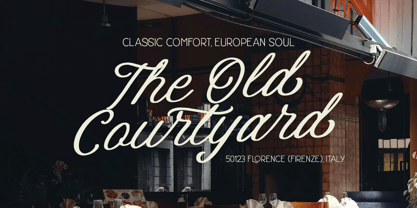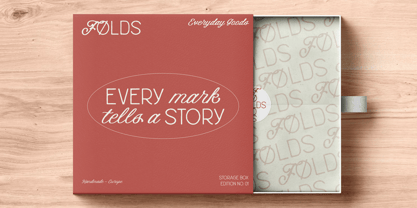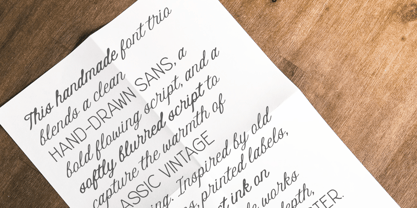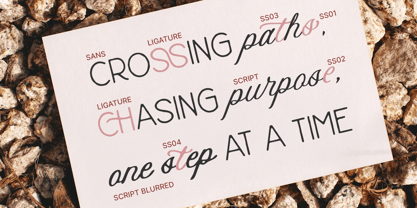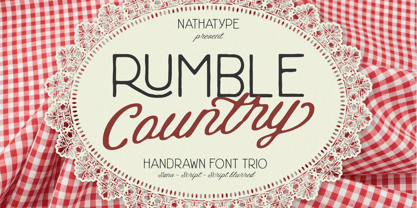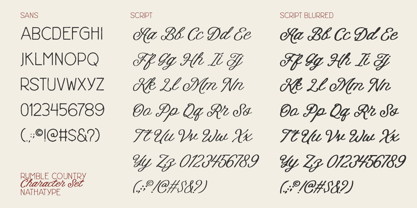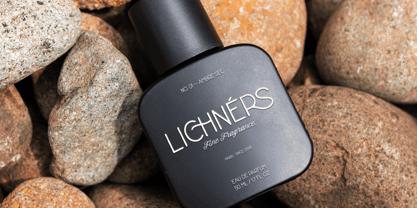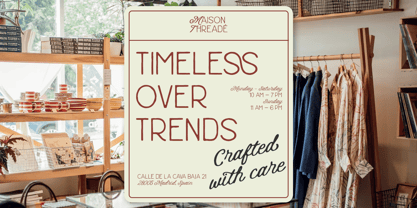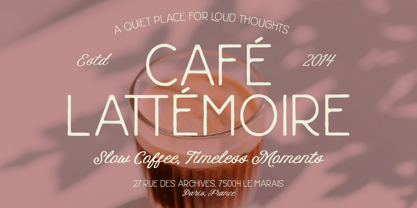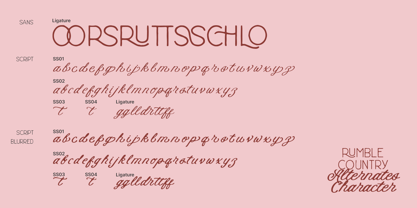
Rumble Country
by Nathatype
The Rumble Country Font Family was designed by Donis Miftahudin and published by Nathatype. Rumble Country contains 3 styles and family package options. More about this family
Rumble Country is a versatile and stylish font trio that combines the clean elegance of a modern sans serif, the nostalgic charm of a vintage script, and a unique script blurred version for added creative depth. The sans serif font in Rumble Country is crafted with a thin weight and a modern, minimalist style. This lightweight sans serif provides a strong foundation for contemporary designs, ensuring readability while maintaining a sleek and professional look. In contrast, the script font brings a vintage-inspired aesthetic with smoothly connected letters that mimic classic hand-lettering. To elevate creativity even further, Rumble Country includes a script blurred version, which adds a soft, diffused effect to the original script style. In addition, enjoy the features here. Features: Ligatures Stylistic Sets Multilingual Supports PUA Encoded Numerals and Punctuations Rumble Country fits in invitations, logos, quotes, branding, posters, and many more designs. Find out more ways to use this font by taking a look at the font preview. Thanks for purchasing our fonts. Hopefully, you have a great time using our font. Feel free to contact us anytime for further information or when you have trouble with the font. Thanks a lot and happy designing.